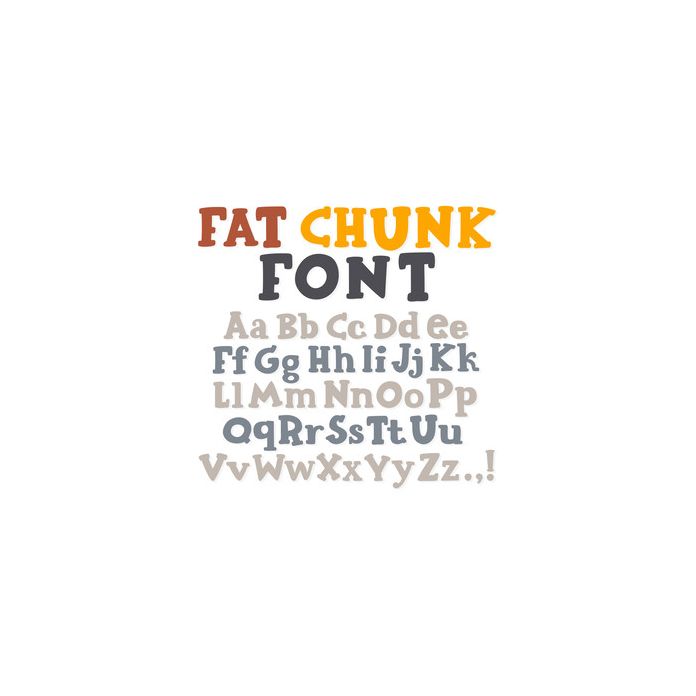
This hand drawn alphabet can be used for any project! This font includes Uppercase, lowercase, and basic punctuation *Kerning, letting, and baseline may need to be adjusted for desired effect.